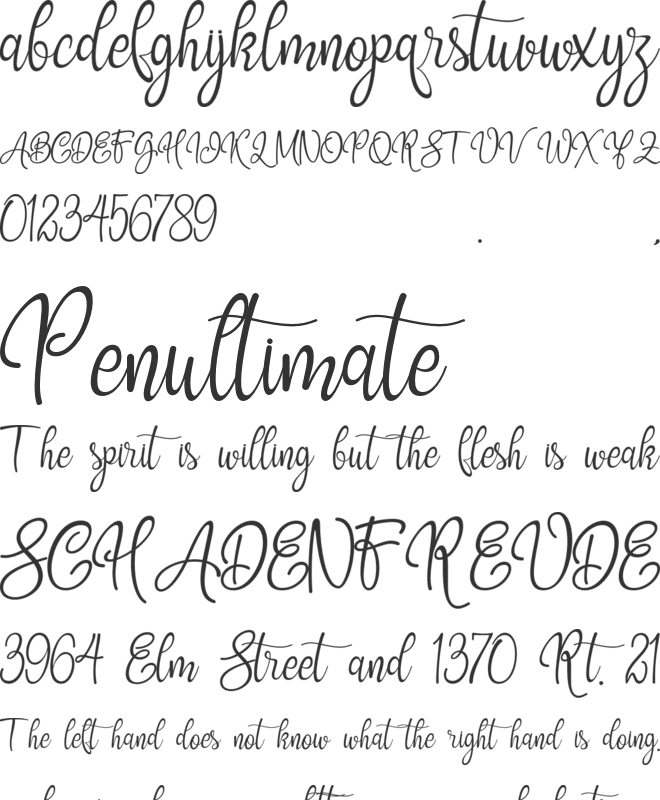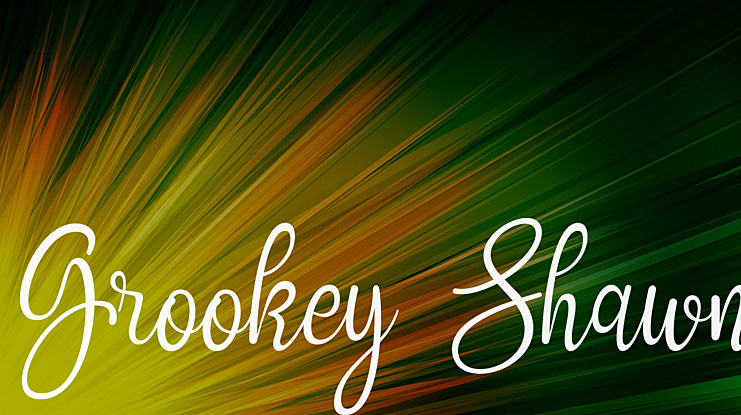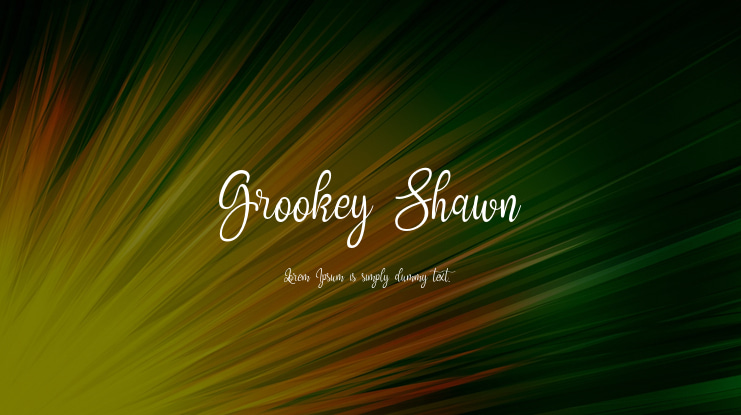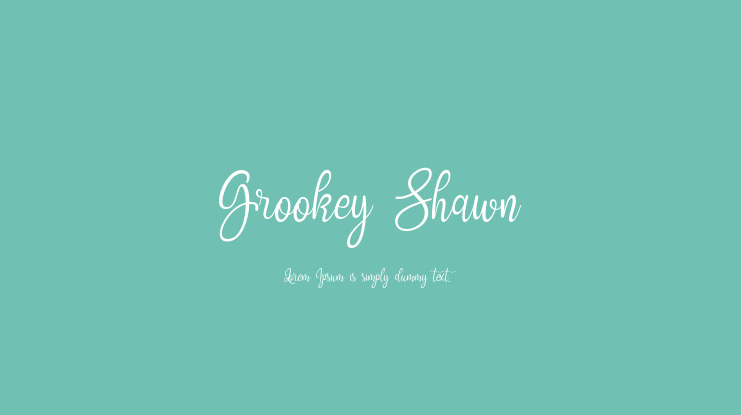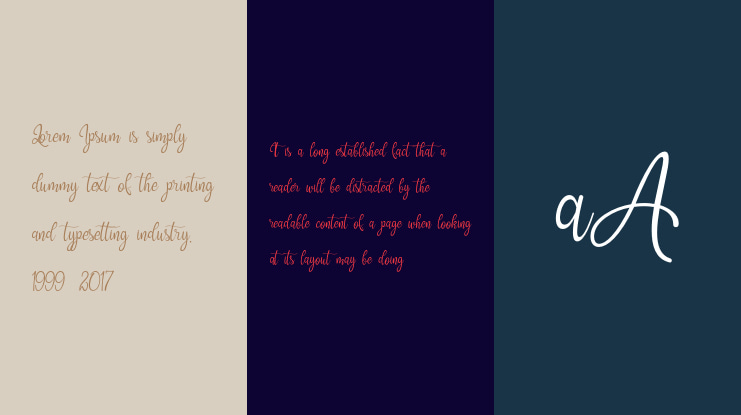
Grookey Shawn Font
Grookey Shawn is a calligraphy script font, over 500 glyph with many letter styles. This font consists of 4 to 6 alternatives, this combination creates a stunning font style (commercial use).